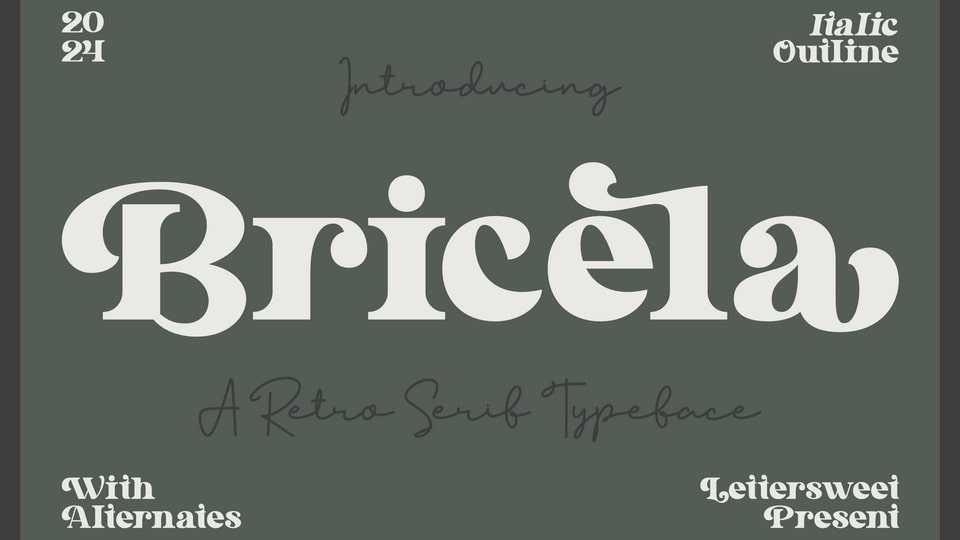
Download Bricela font, a typeface that feels playfully nostalgic and delivers an incredible vintage aesthetic. Use this serif font to add that special retro touch to any design idea you can think of!